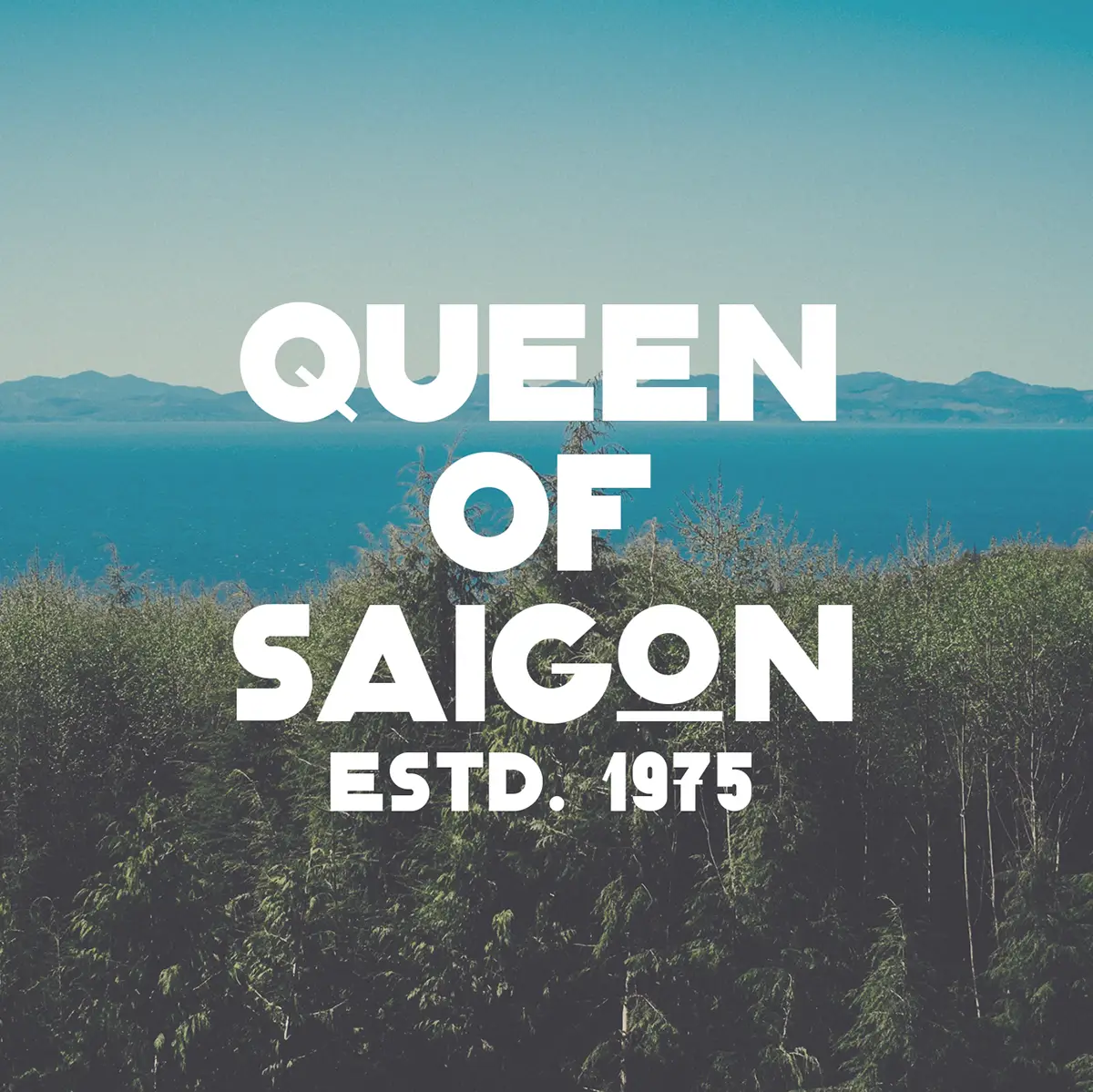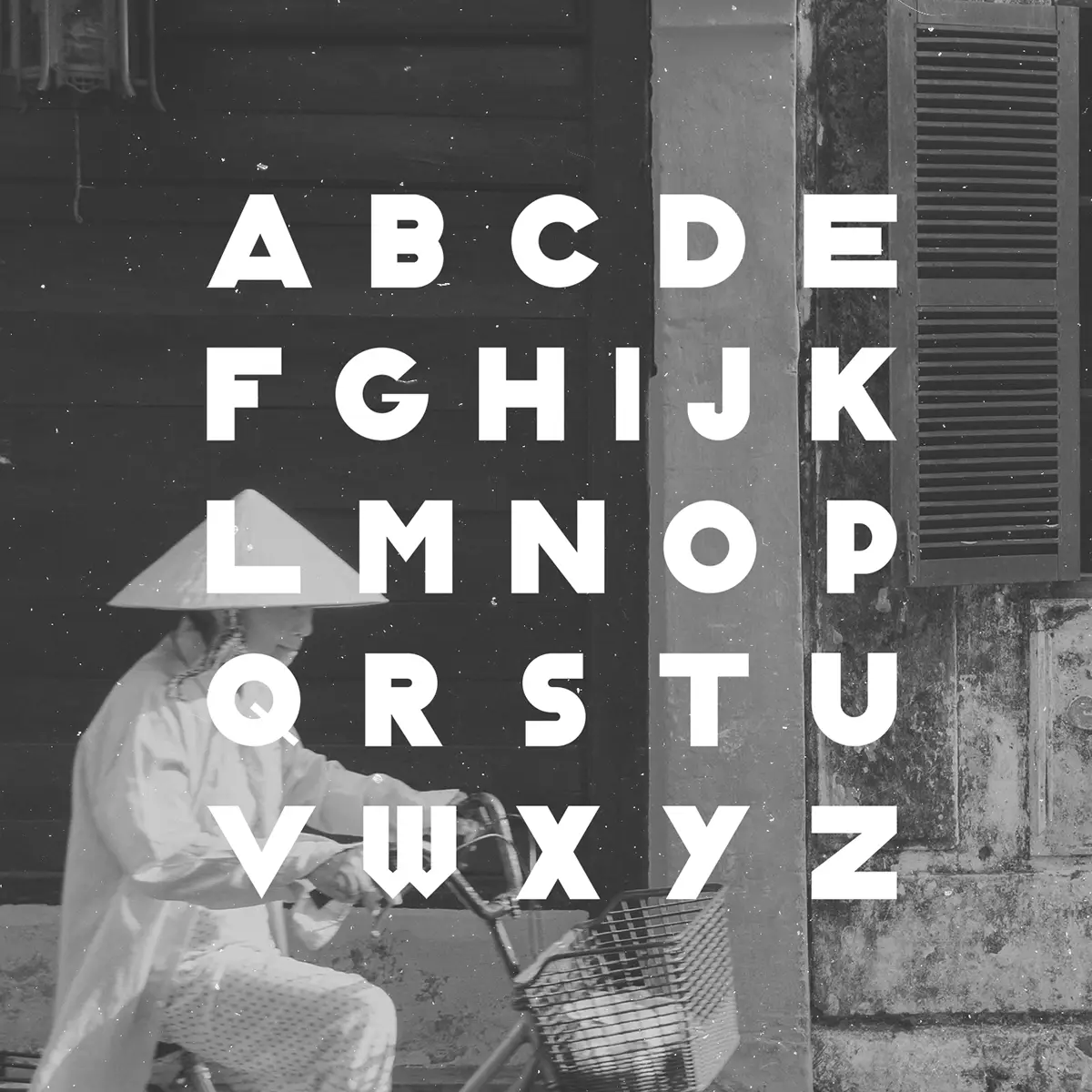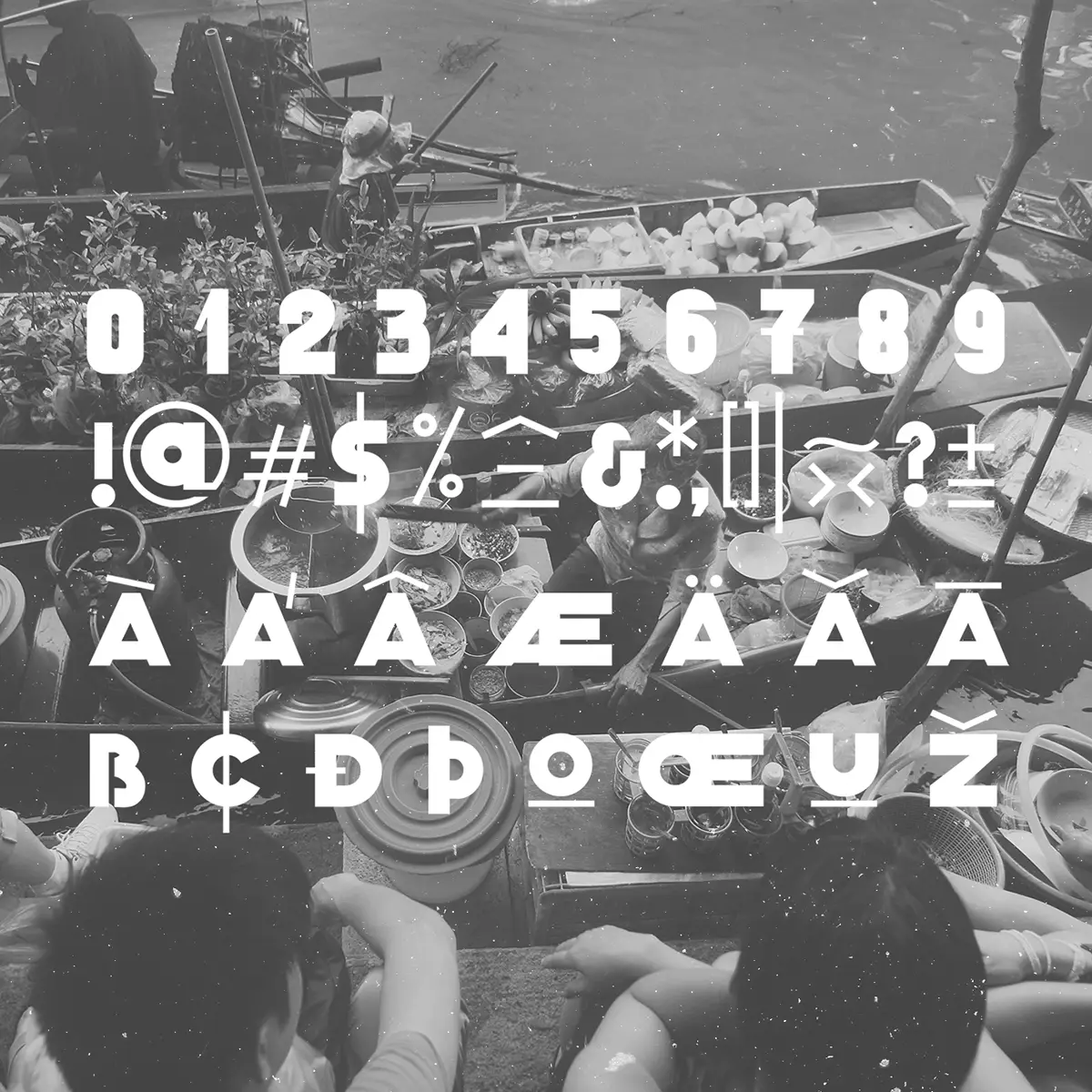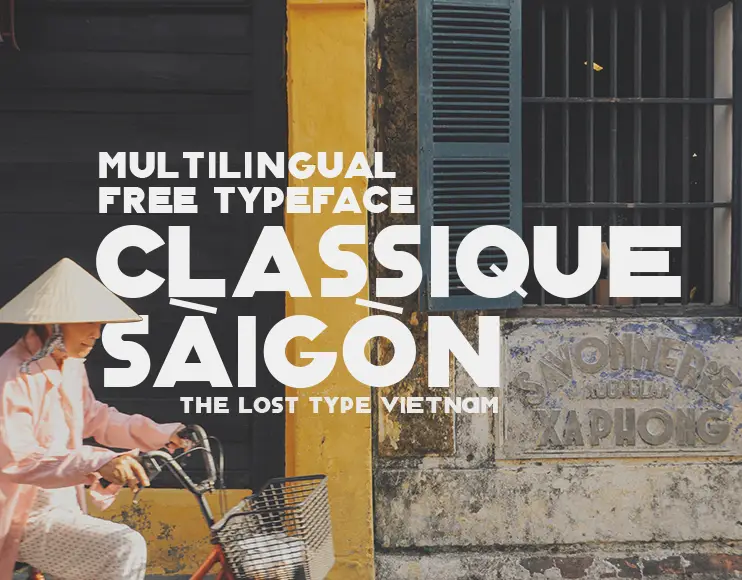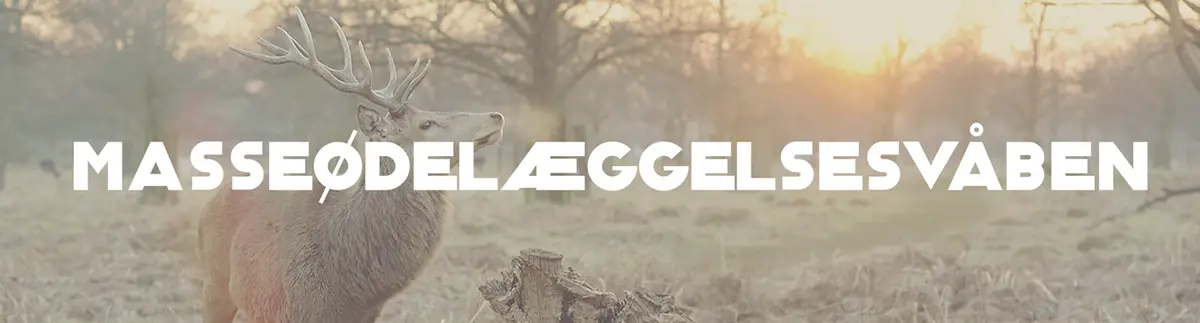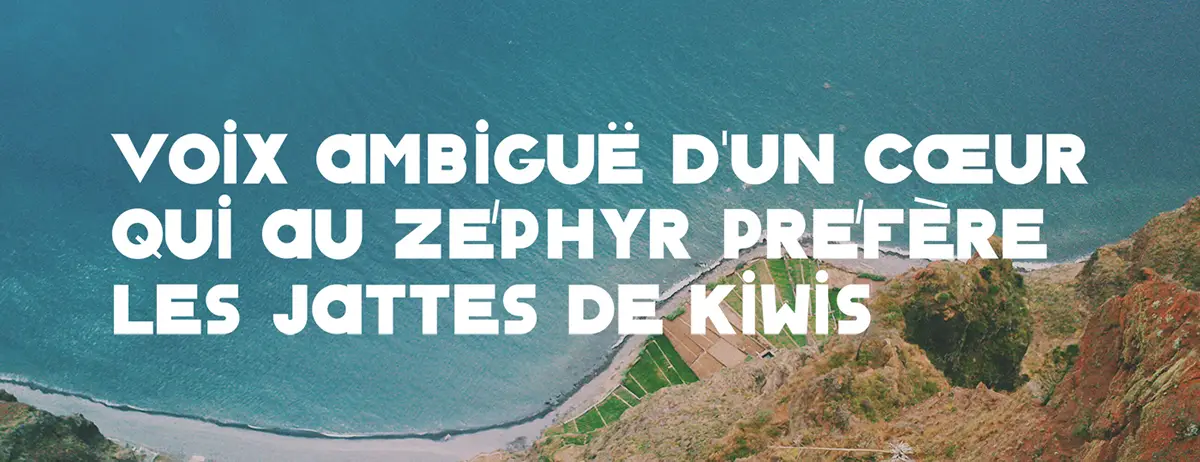
Classique Saigon Typeface
The Classique Saigon Typeface is a beautifully crafted font that captures the essence of elegance and sophistication. With its unique design, this typeface is perfect for a variety of applications, from branding and logos to web and print projects.
• Stylish and modern design
• Easy to read at various sizes
• Ideal for branding projects and logo design
• Great for use in web design and digital media
• Perfect for print materials such as brochures and business cards